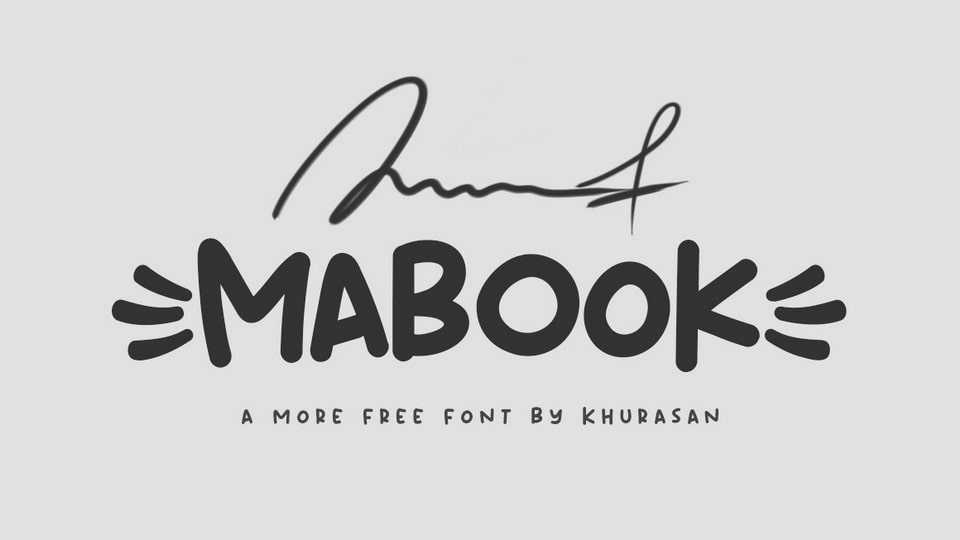
Download Mabook font, a funny and playful hand drawn typeface. Mabook is perfect for writing out quotes for Instagram posts, comics, greeting cards, crafts, packaging or branding.